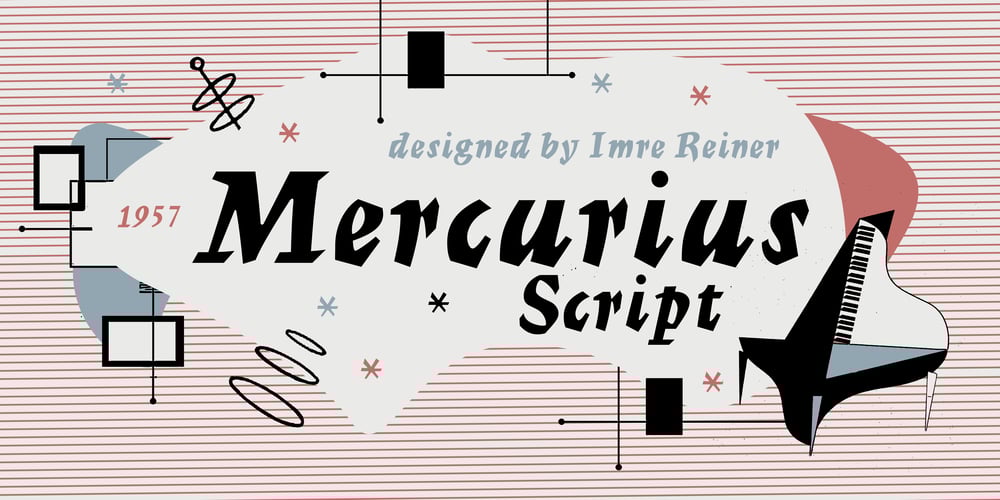
Mercurius Script
Mercurius Script font
Mercurius Script Font Family was designed by Imre Reiner and published by Monotype. Mercurius Script contains 1 styles and family package options. Mercurius Script font was designed by the Hungarian wood engraver and type designer Imre Reiner in 1957 for the Monotype Corporation. The expressiveness of this bold script typeface is the result of Reiner’s use of a bamboo pen for Mercurius Script’s elemental shapes. Used sparingly, Mercurius Script font gives even the dullest headlines genuine spirit and excitement.